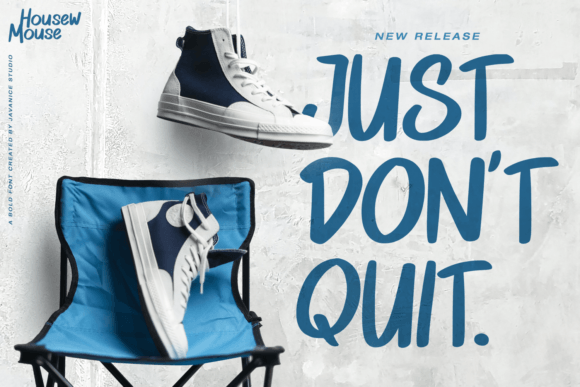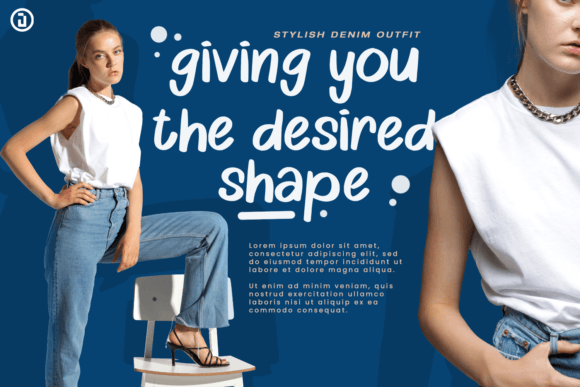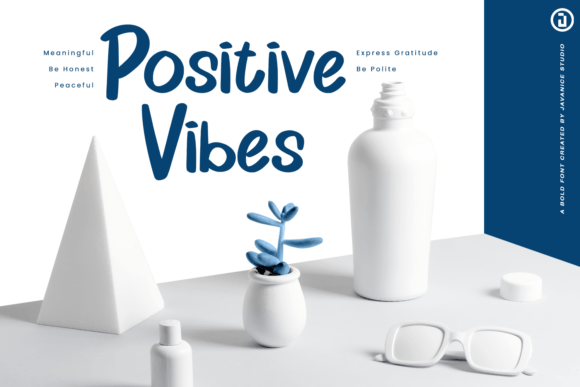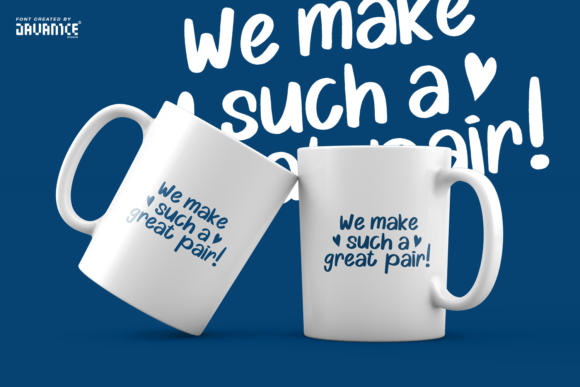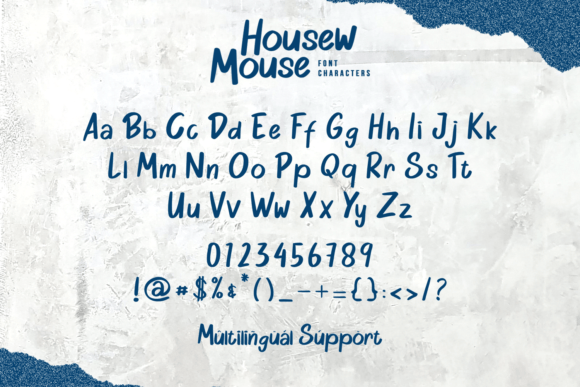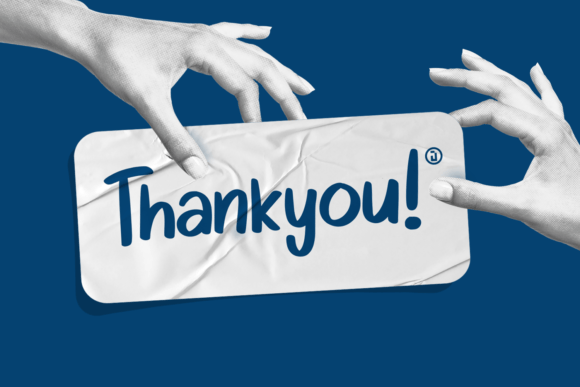
Introduction to Housew Mouse Font
Have you ever stared at a blank canvas, waiting for inspiration to strike? Maybe you’re a graphic designer, or perhaps you’re an artist, but whatever your creative pursuit, you know the feeling of wanting to bring your ideas to life. That’s exactly what happens when you come across the perfect font – and that’s where Housew Mouse Font comes in. This bold, handwritten font is a game-changer for designers and creatives alike, offering a high-quality design resource that’s perfect for a wide range of projects.
Whether you’re working on a branding project, creating packaging for a new product, or designing a magazine spread, Housew Mouse Font is the perfect choice. Its unique, handwritten style gives your design a personal touch, while its transparent background makes it easy to overlay on top of images or other design elements. With its versatility and creative possibilities, it’s no wonder Housew Mouse Font is a valuable addition to any designer’s toolkit.
Key Features of Housew Mouse Font
- High-quality design for creative projects: Housew Mouse Font is a unique and stylish font that can be used for various creative projects, including logos, branding, and advertising.
- Transparent background: This font features a transparent background, making it easy to use with any background or image.
- Unique and creative style: This font features a unique and creative style, making it perfect for designers looking to add a touch of personality to their projects.
- Easy to use: With its clean and simple design, Housew Mouse Font is easy to use and requires minimal setup, making it perfect for designers of all skill levels.
Honest Review: Housew Mouse Font
I recently came across the Housew Mouse Font, and I must say, it’s been a great addition to my design resource library. As a designer, I’m always on the lookout for high-quality fonts that can elevate my creative projects.
The Housew Mouse Font is a unique and playful font that’s perfect for projects that require a fun and whimsical touch. One of the things that stands out about this font is its transparent background, which makes it incredibly versatile and easy to work with. ✨
Here are some of the things that I love about the Housew Mouse Font:
While the Housew Mouse Font is a great resource, there are a few limitations to be aware of:
- It may not be suitable for formal or professional projects, as it can come across as too playful or informal.
- It may not be as polished or refined as some other fonts on the market.
Overall, I’m really impressed with the Housew Mouse Font. It’s a great design resource that’s perfect for creative projects where a little whimsy and personality are needed. With its high-quality design and transparent background, it’s definitely worth checking out. ⚠️
The Housew Mouse Font is a high-quality, free design resource ideal for creative projects. This font features a unique style and a transparent background, making it a versatile design element.
Tips for Getting the Most Out of Housew Mouse Font
For optimal results, use the Housew Mouse Font in conjunction with other high-quality design elements. Experiment with different font sizes, colors, and arrangements to create visually appealing designs.